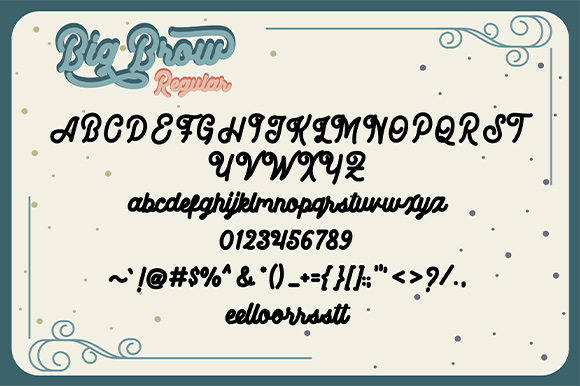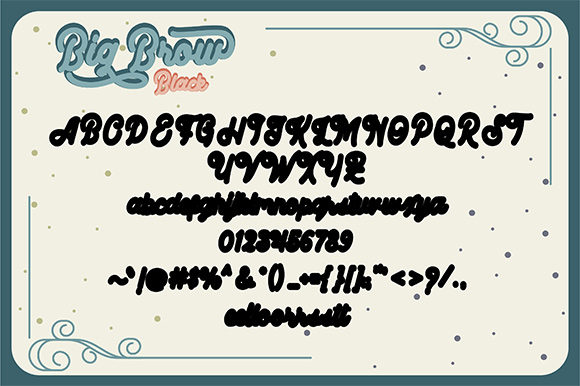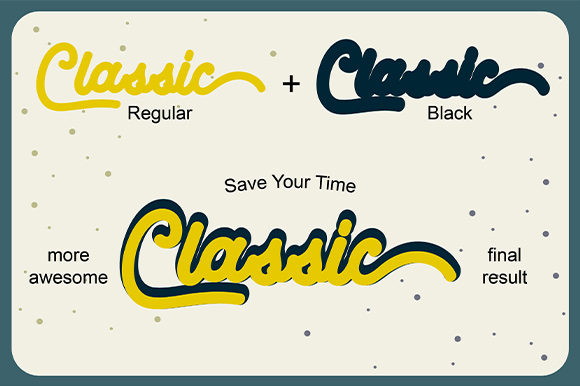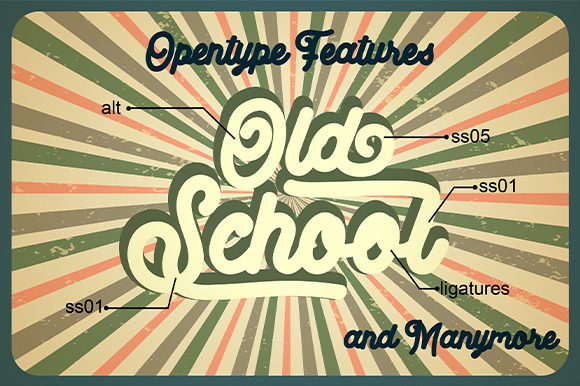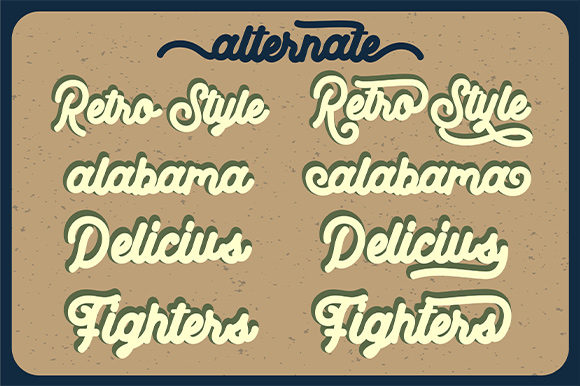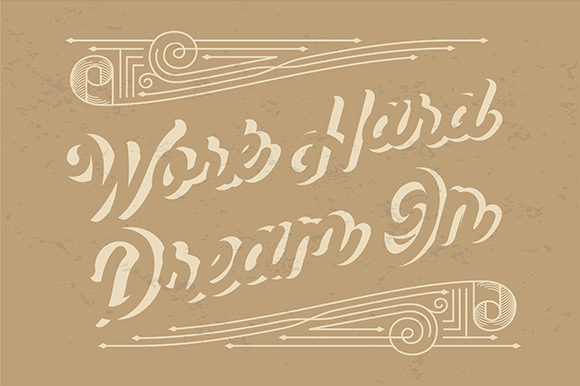
Introduction to Big Brow Font
Have you ever stumbled upon a font that perfectly captures the essence of your creative project? For designers, finding the right font can be the difference between a mediocre design and a masterpiece. One such font that has been making waves in the design community is the Big Brow Font – a bold display font with a retro style that screams vintage charm.
Whether you’re working on a branding project for a barbershop, a motorcycle club, or a trendy coffee shop, the Big Brow Font is the perfect design resource to elevate your creative project. With its high-quality design and transparent background, this font is a valuable asset for any designer looking to add a touch of retro flair to their work.
Key Features of Big Brow Font
- High-quality design with unique, bold characters, ideal for creative projects.
- Designed with a bold, eye-catching style, making it perfect for headings, titles, and other prominent text elements.
Honest Review: Big Brow Font
As a designer, I’m always on the lookout for unique and high-quality fonts to enhance my creative projects. The Big Brow Font caught my attention, and I decided to give it a try.
- ✨ Unique and quirky design: Big Brow Font has a distinctive, hand-drawn feel that’s perfect for adding a touch of personality to your designs.
- ✨ High-quality glyphs: The font includes a wide range of glyphs, including international characters, which is a big plus for designers working on global projects.
- ⚠️ Limited transparency options: The font doesn’t include a transparent background option, which can make it difficult to use in certain design scenarios.
- ⚠️ Not ideal for small text: Big Brow Font is best used in larger font sizes, as the quirky design can become overwhelming when used in small text.
Overall, I’m impressed with Big Brow Font’s unique design and high-quality glyphs. While it may not be perfect for every design scenario, it’s a great addition to any designer’s toolkit. If you’re looking for a creative and free design resource, Big Brow Font is definitely worth checking out.
Big Brow Font is ideal for creating eye-catching graphics, logos, and text overlays. You can use it to add a unique touch to your social media posts, website headers, or marketing materials. To get the most out of it, experiment with different font sizes, colors, and combinations to find the perfect look for your creative project.